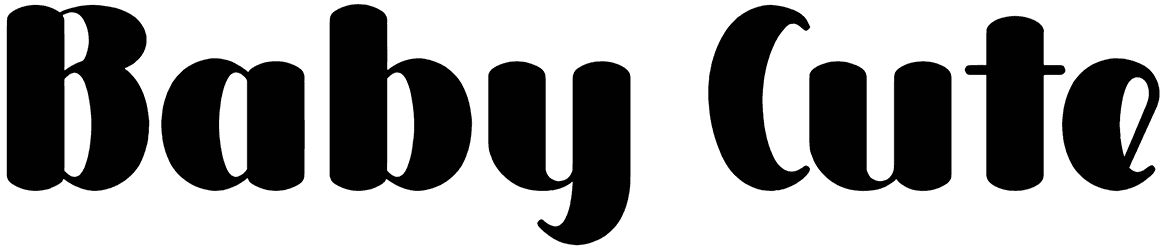
Baby Cute Font
Let us change how your text is seen with the cartoonish style of our new baby font, Baby Cute, so you can appeal to even more people. The way it’s designed, paradoxically, with both thick parts and thin lines in its structure, the visual playfulness of your text is the bag.
Just see if you’re okay with not having any matching numbers, and then you can apply it to your invitations and posters as a happy birthday font.